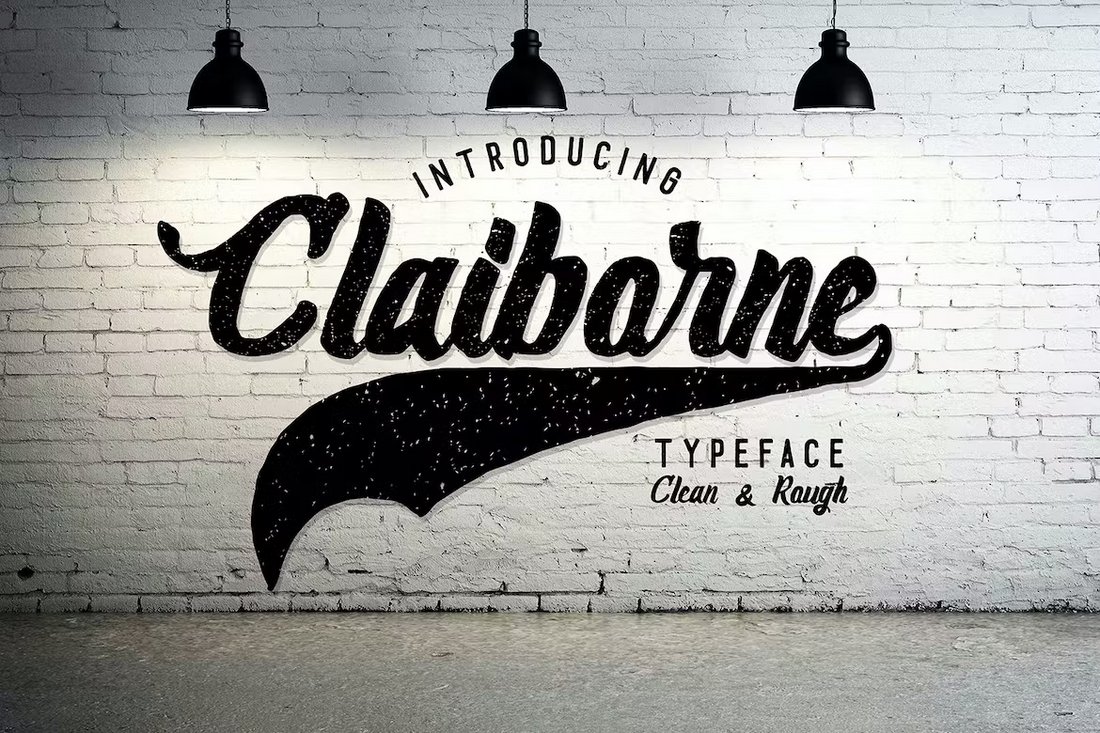
There’s something about baseball that brings you a nostalgic feel whenever you see anything related to the sport. Maybe it reminds you of your childhood, playing with friends, or watching games with the family.
The typefaces used in baseball designs play a key role in this process. If you look at merchandise from any baseball team, you’ll notice that they have one thing in common—a script font with long tail designs.
Designers have found a way to leverage this to make designs that evokes the same emotions by using baseball fonts in various designs.
In this collection, we showcase some beautiful baseball fonts with beautiful script designs and long tails for you to download. Whether you’re working on merchandise for a local baseball team or branding designs for a sports-related business, these fonts will help you achieve the same vintage look in your artworks.
Migliore – Script Baseball Font
This beautiful script font comes with a multipurpose letter design that you can use to craft many different types of sports-themed designs. The font is also perfect for wedding invitations, greeting cards, custom T-shirts, and so much more. It includes lots of swashes and ligatures too.
Wildcat – Sports & Baseball Font
Wildcat is a multipurpose sports font for designing typography for baseball, football, and various other designs. It has all-caps letters with serif-style characteristics. The font is ideal for apparel and merchandise designs.
Mosenta – Retro Baseball Font
If you want to design retro-style titles and logos for your baseball team, this font is perfect for your project. It features rough textured letters with plenty of ligatures and alternates. The font has both uppercase and lowercase characters too.
Changeball – Creative Baseball Font
Use this font to design bold and attractive logos for your baseball-themed designs. It has chunky characters that will instantly attract the attention of your audience. The font includes all-caps letters with numbers.
Chicago Shift – Free Baseball Font
This free baseball font is most suitable for designing merchandise for baseball teams and brands. It can also be used for product labels. This font is free to use for your personal projects.
BINNEK – Athletic Sports Font
If you want to step away from traditional sports designs and craft a modern logo for your team, this font will help get the job done. It features a unique style of letters that are ideal for a modern baseball brand design.
Claiborne – Clean Baseball Font
Claiborne is a multipurpose baseball font that features 2 different styles of fonts. It has a clean regular font and a rough lettering font. Both are ideal for baseball and sports designs.
Yankees Classic – Baseball Font
Another classic baseball font with a stylish script lettering design. This font is great for all kinds of baseball-themed designs, including logos, badges, apparel designs, and more. The font comes in outline and extrude versions too.
Groundout – Modern Baseball Font
Groundout is a modern baseball font with a clean-cut letter design. You can use it to design all sorts of digital and print designs related to sports teams. It’s great for product labels and badge designs as well.
Slugger – Free Baseball Monogram Font
You can download this font for free to design cool monogram-style logos for baseball teams. It will also look great on baseball caps, jerseys, and other types of apparel. The font is free to use with personal projects.
Flanders – Modern Baseball Font
Flanders is a bold, and modern font perfectly fitting to a pool of sports-themed branding designs ranging from team jerseys, logotypes to quotes, and posters. It offers a range of OpenType features and supports multi-languages. Get it now.
Northline – Baseball Script Font
Northline is a contemporary font that can be used to create baseball-themed jerseys, posters, logotypes, brochures, signs, banners, and other branding material with ease. It works on both MAC and PC and can be accessed without needing additional design software.
Boston – Baseball Script Font
Nuraga – Bold Baseball Font
Modeled after the poster style of 1960, Nuraga is a bold sans-serif font that will feel right at home for nearly ant baseball-themed project. A great font for projects that need a vintage look, Nuraga also brings a dash of modern charm to the table.
This is the perfect font you can use to recreate the same look from your favorite baseball teams. It’s designed with baseball fans in mind and features the same wavy tails and script styles from popular baseball team logos. The font also includes regular and 3 extrude versions as well.
Nordin is a family of all-caps fonts that feature extrude, outline, and shadow font designs. They are all feature narrow lettering styles with vintage looks. You can use them to design various print and digital artworks.
Houston Italic Baseball Font Family
This font has a very modern look and features italic letters. While it doesn’t have all the classic baseball typeface elements, it’s a great choice for crafting various print and digital sports-themed designs. It includes 4 different font styles.